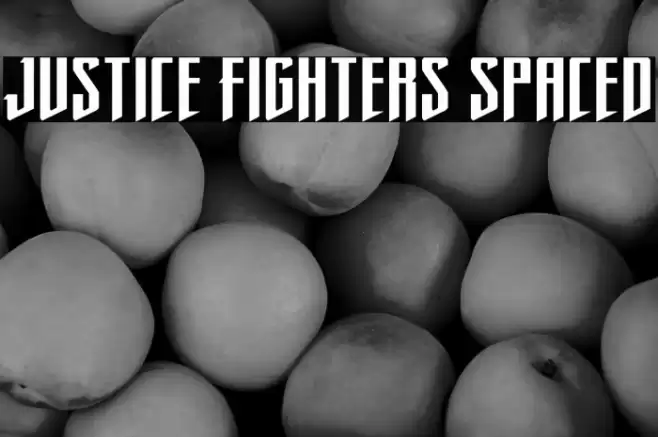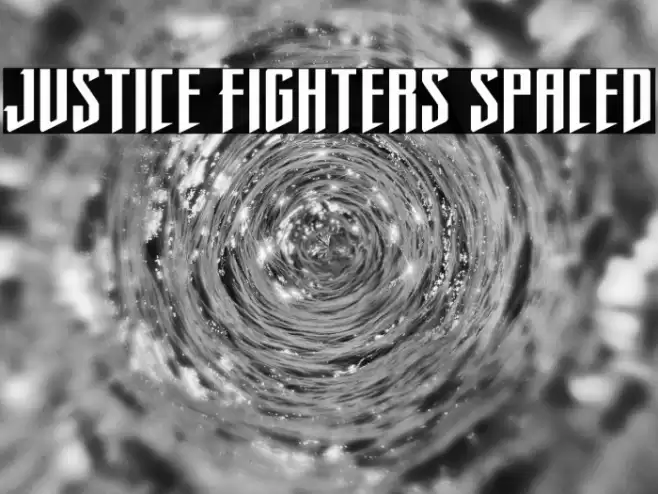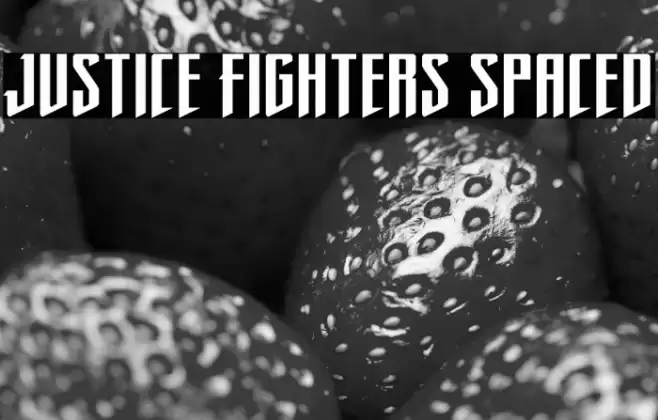
Justice Fighters Spaced Font
Justice Fighters Spaced Description
This font features a bold, angular design with sharp edges and a strong presence. The characters are tall and narrow, giving a condensed appearance that emphasizes verticality. The uppercase letters are particularly striking, with a futuristic and dynamic style that suggests movement and energy. The numbers and special characters maintain this bold aesthetic, ensuring consistency across all glyphs. This font is ideal for projects that require a strong, impactful visual statement.
A bold, angular font with a futuristic and dynamic style from Regular fonts.
- Proposed Projects: Ideal for posters, video game titles, branding for tech companies, and any design needing a strong, impactful presence.
- Character Spacing: Tight